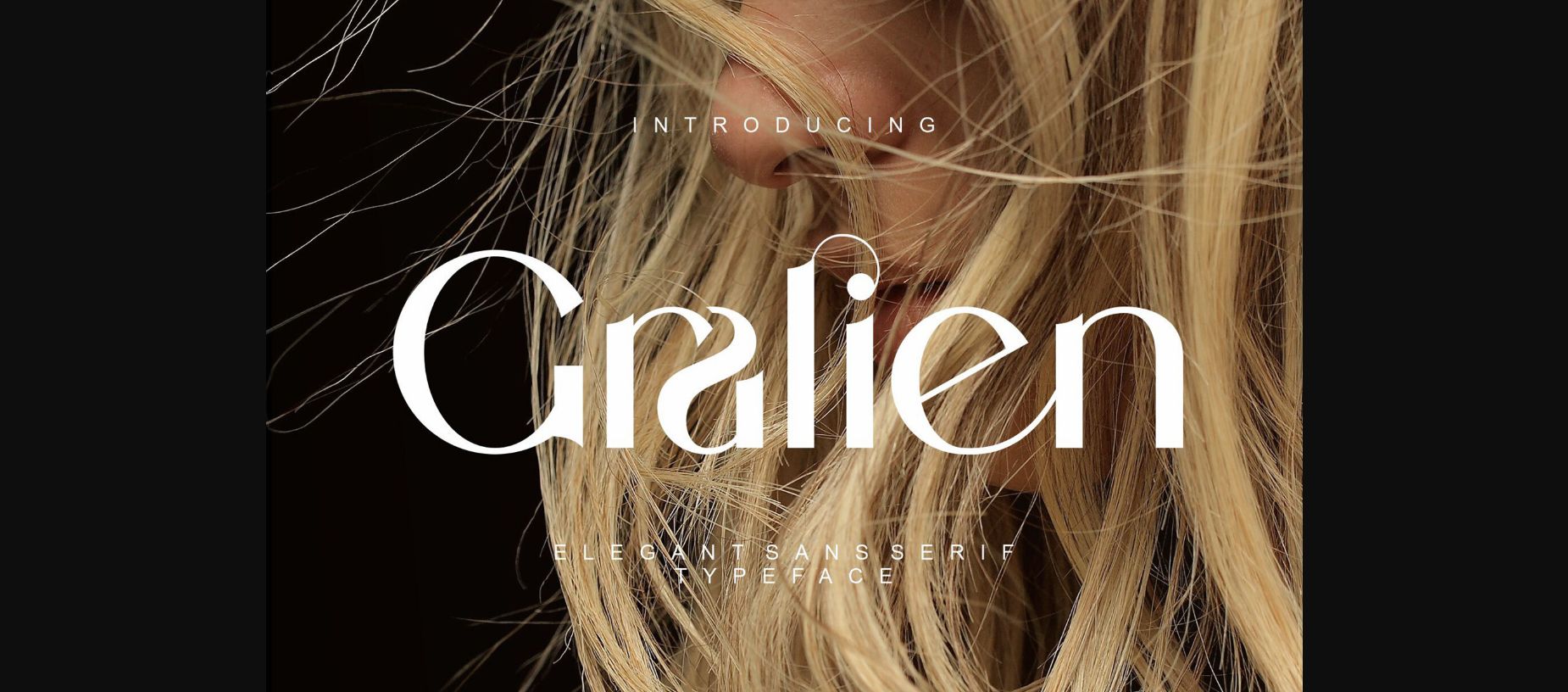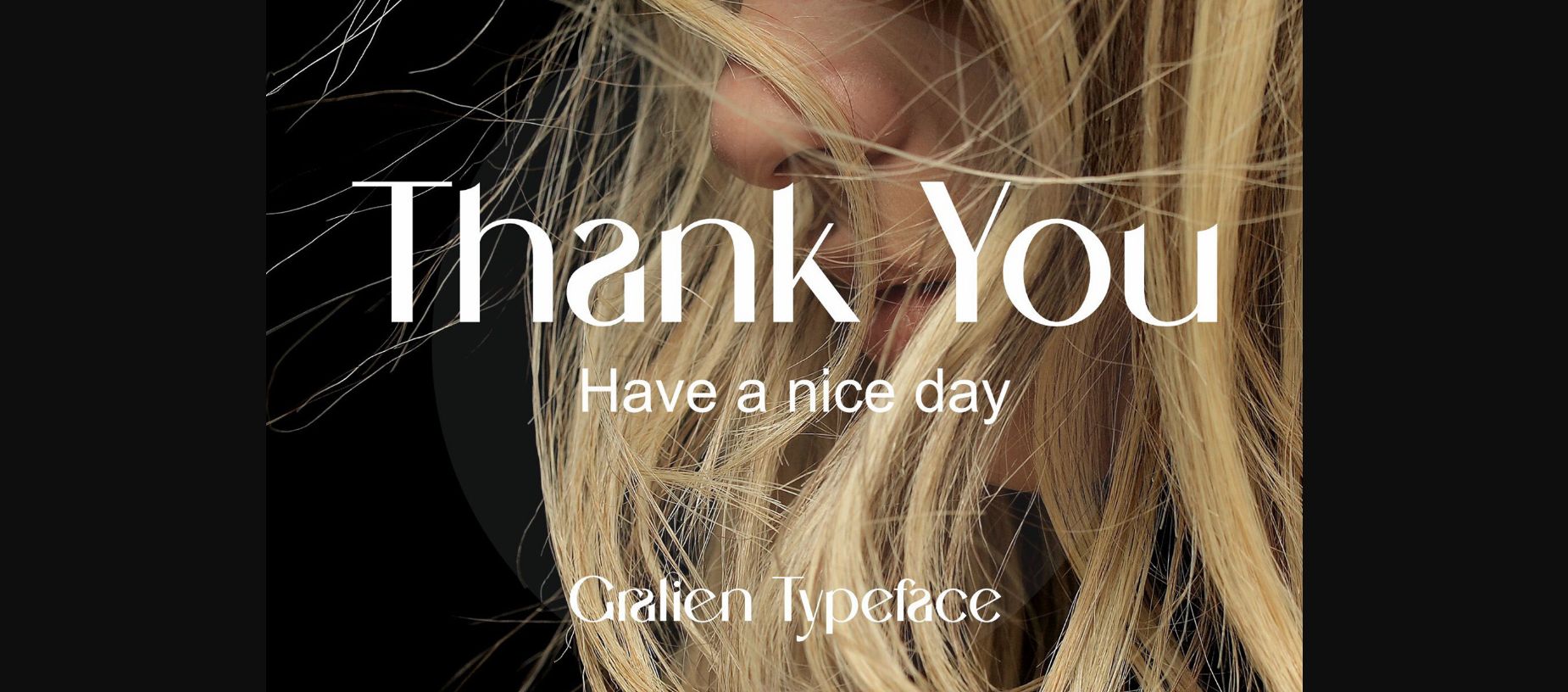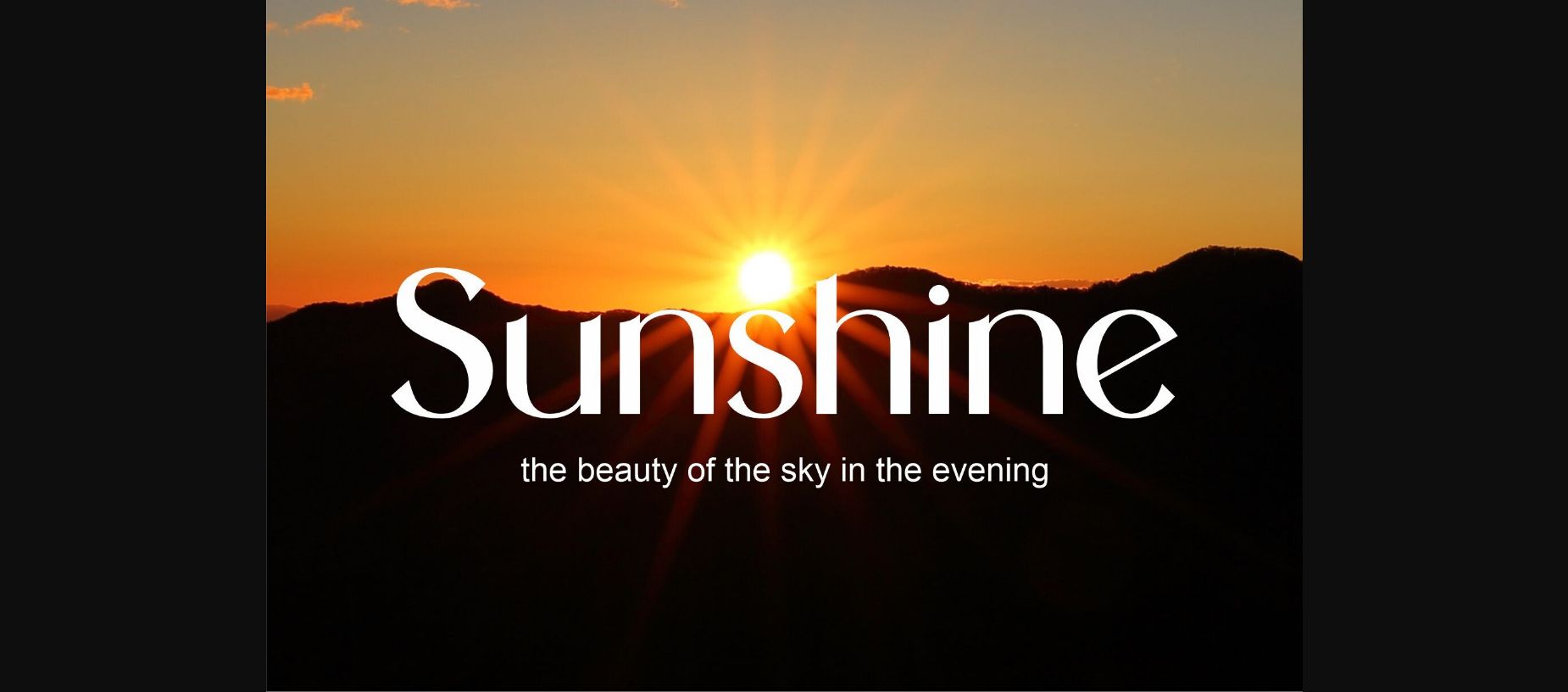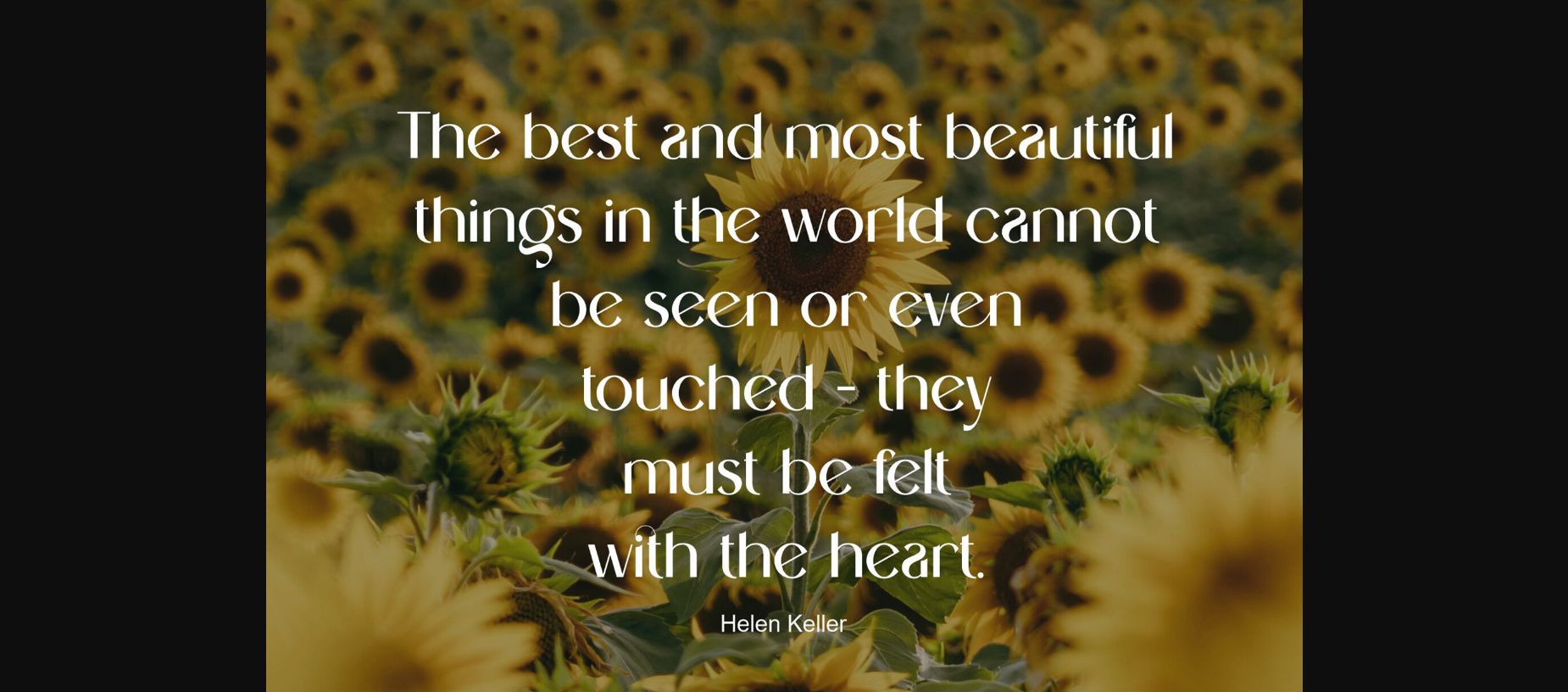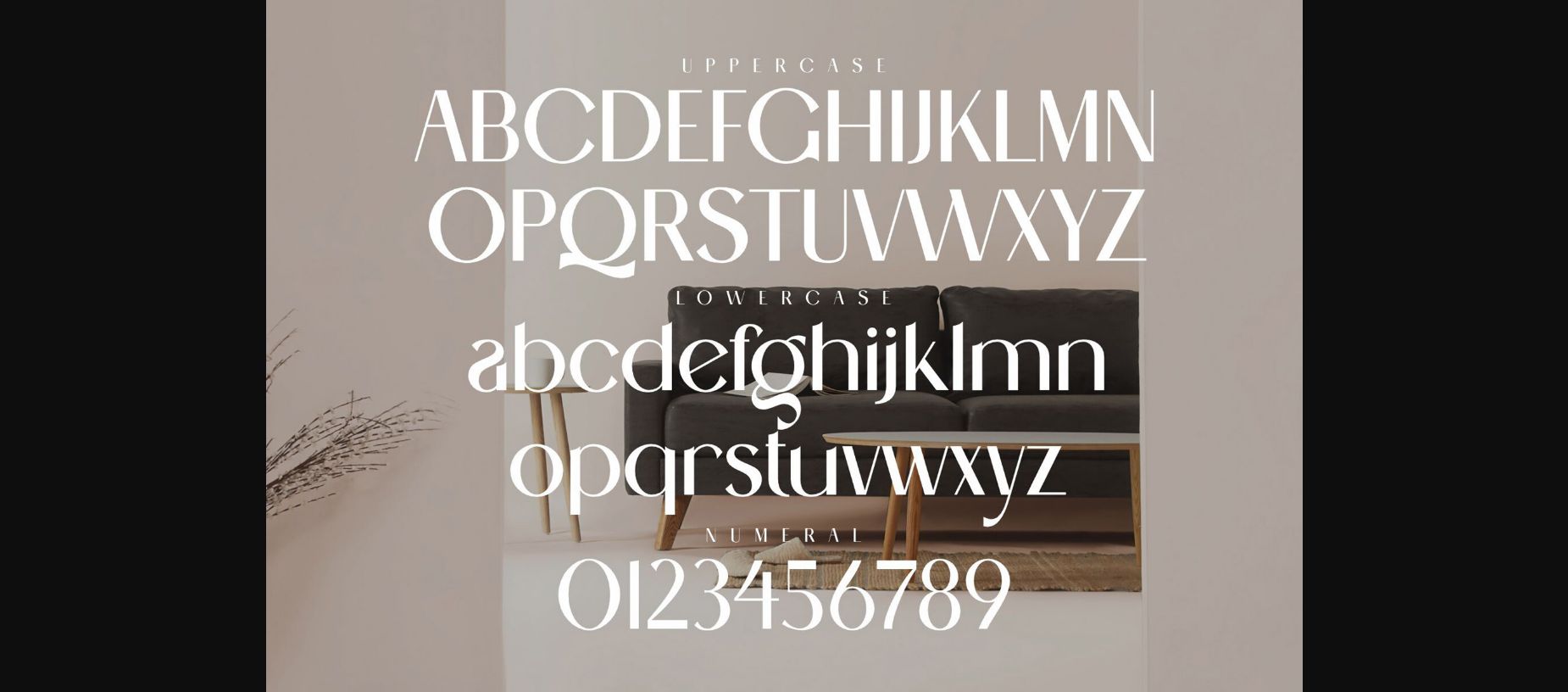
About Gralien Font
**Gralien** sans serif with simple, clean, and visual elegance. Specially designed for elegant-themed projects, perfectly suitable for creating simple, clean, lifestyle designs such as logos, titles, magazine,s and more.